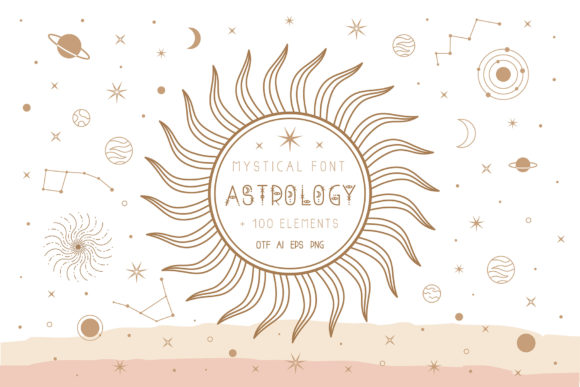
Introducing the captivating and mystical Astrology Font, designed by Juliya Kochkanyan. This font family is the perfect addition to your creative arsenal, allowing you to create eye-catching designs that truly stand out.
With its unique and friendly feel, Astrology Font is an incredibly versatile display font that can be used in a wide range of contexts. Whether you're designing a logo, creating a poster, or crafting a social media post, this font family will help elevate your message and bring it to life.
Astrology Font is not only visually stunning, but it also has a touch of magic that will captivate your audience. Its simple yet mystical design will inspire your creative ideas, helping you create truly memorable designs that leave a lasting impression.
With its subtle curves and elegant design, Astrology Font is perfect for those looking to add a touch of mystery and intrigue to their designs. Its captivating aesthetic is sure to evoke emotion and engage your audience, making it a must-have font family for any designer.
In summary, if you're looking for a font that will take your designs to the next level, look no further than Astrology Font. With its versatility, magic, and captivating design, this font family is sure to become a staple in your creative toolkit. Download it today and see the difference it can make for yourself!